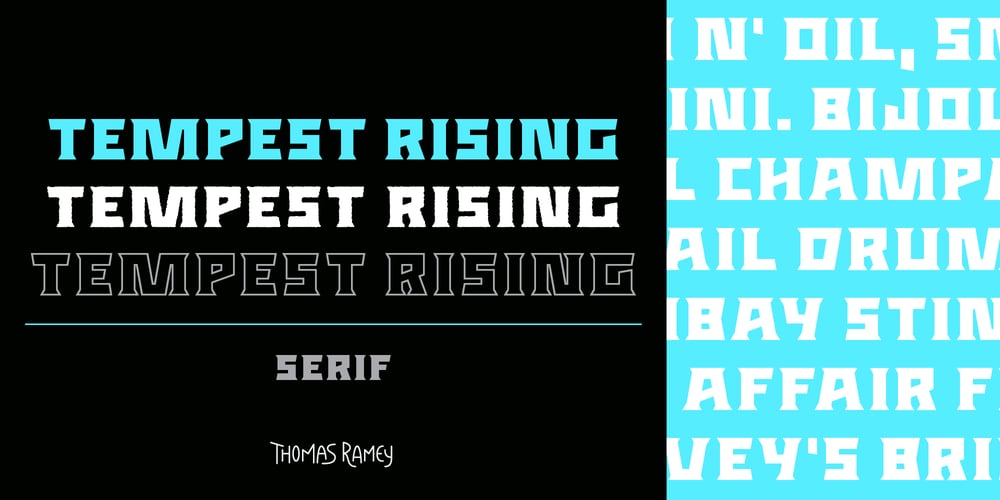
Tempest Rising Serif Font Family was designed by Thomas Ramey and published by Thomas Ramey Design. Tempest Rising Serif contains 5 styles and family package options. Tempest Rising is a powerful serif font that channels the energy of a storm brewing on the horizon. Its thick, bold glyphs create a sense of authority and strength, while its sharp angles and precise lines evoke a spirit of vintage charm and timeless elegance. Each character is meticulously designed to maximize visual impact, making the font perfect for whiskey and bourbon labels, headlines, posters, branding, and anywhere a bold statement needs to be made.The typography is compact and dense, with condensed forms that allow for maximum use of space without sacrificing legibility. Its geometric foundation gives it a modern edge, while the sharp angles introduce a sense of urgency and momentum. The font’s architecture balances between rugged strength and refined precision, making it versatile for both high-energy, dynamic designs and minimal, structured layouts.What truly sets Tempest Rising apart is its unyielding presence. It doesn’t just occupy space—it dominates it, bringing a sense of gravity and intensity to any project. Whether paired with rich colors for a striking, sophisticated look or set against aged backdrops for a more dramatic, vintage composition, the font adapts effortlessly. Its bold strokes cut through the visual landscape like the crack of a whiskey barrel being tapped, resonating with clarity and purpose.The subtle details—like the aggressive tapering of serifs and sharp corners—echo the essence of craftsmanship and the allure of aged spirits, reminiscent of the storied labels that grace fine bottles. There’s a sense of tension and release in its form, reminiscent of the anticipation before savoring a well-aged whiskey that builds into a flavorful crescendo. Tempest Rising is more than a font; it’s a declaration, a symbol of strength and tradition, a visual embodiment of power, sophistication, and the rich history of fine spirits.